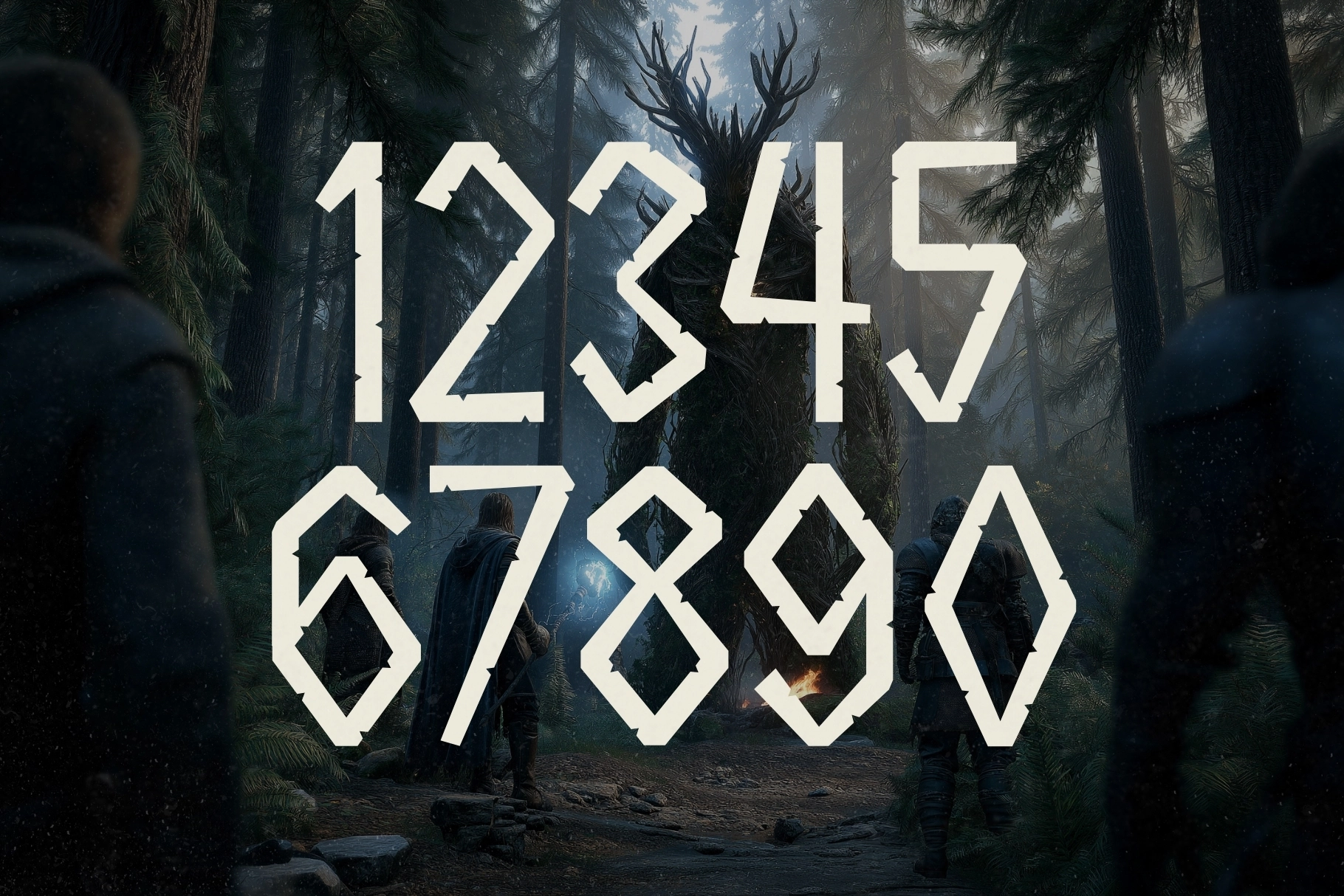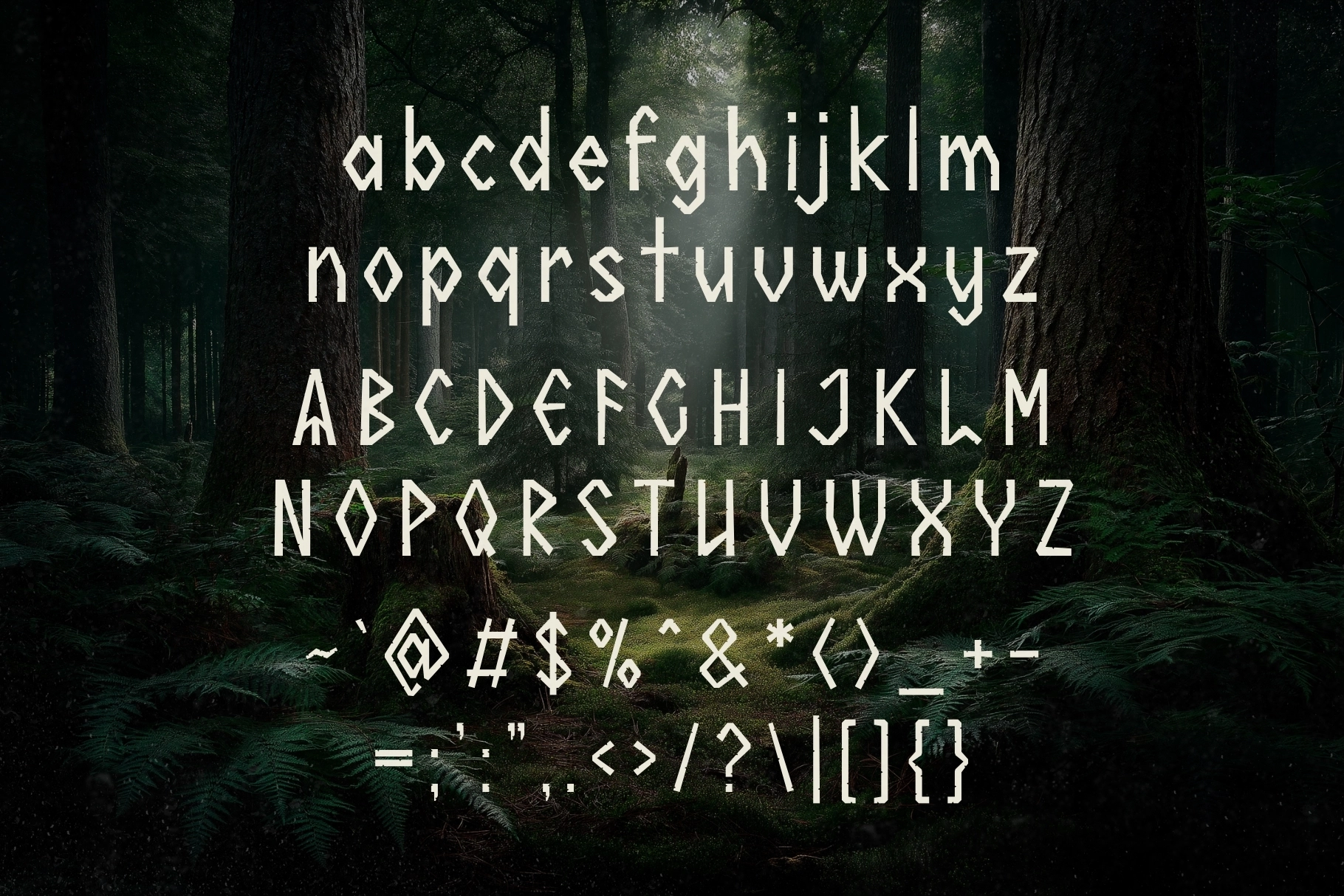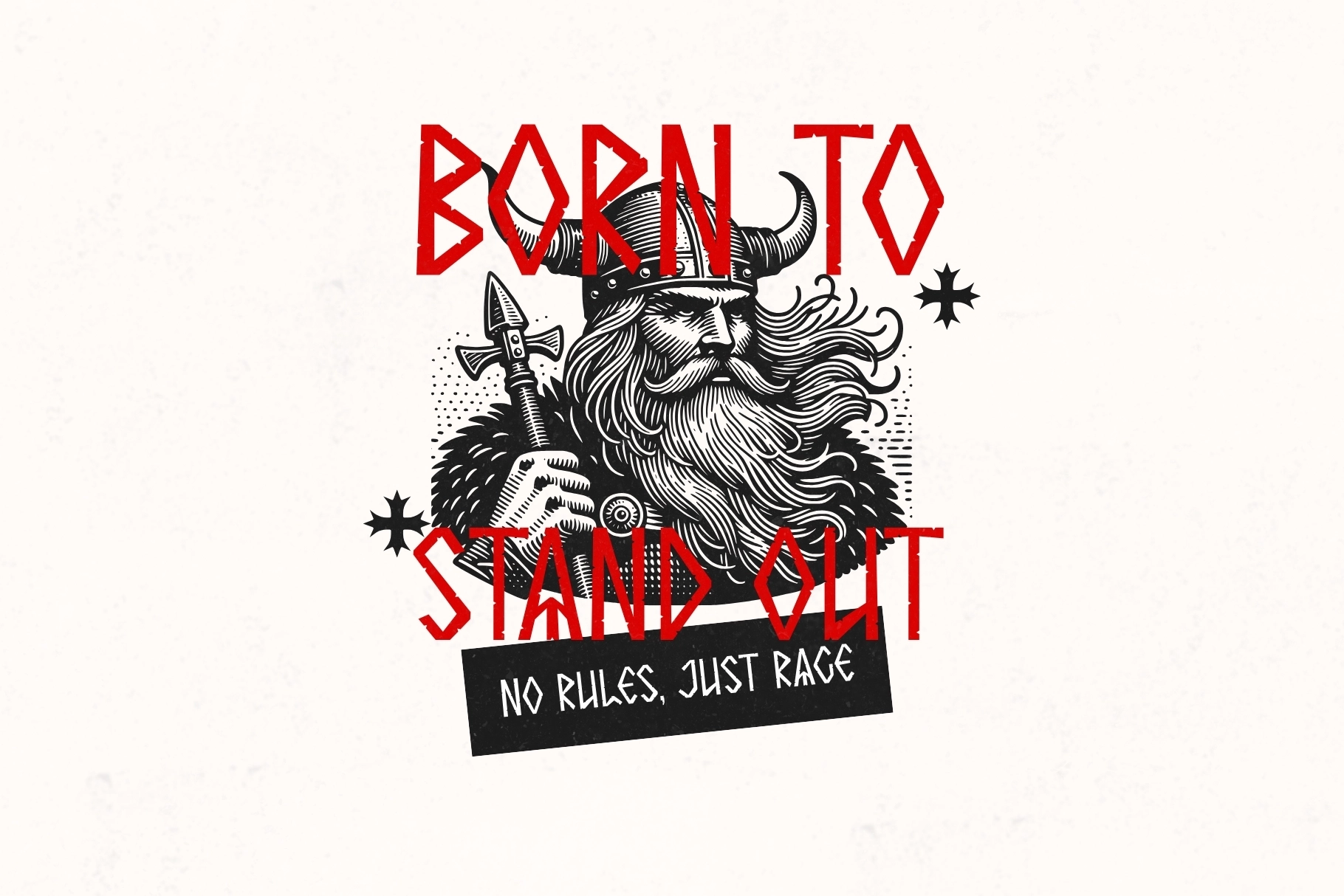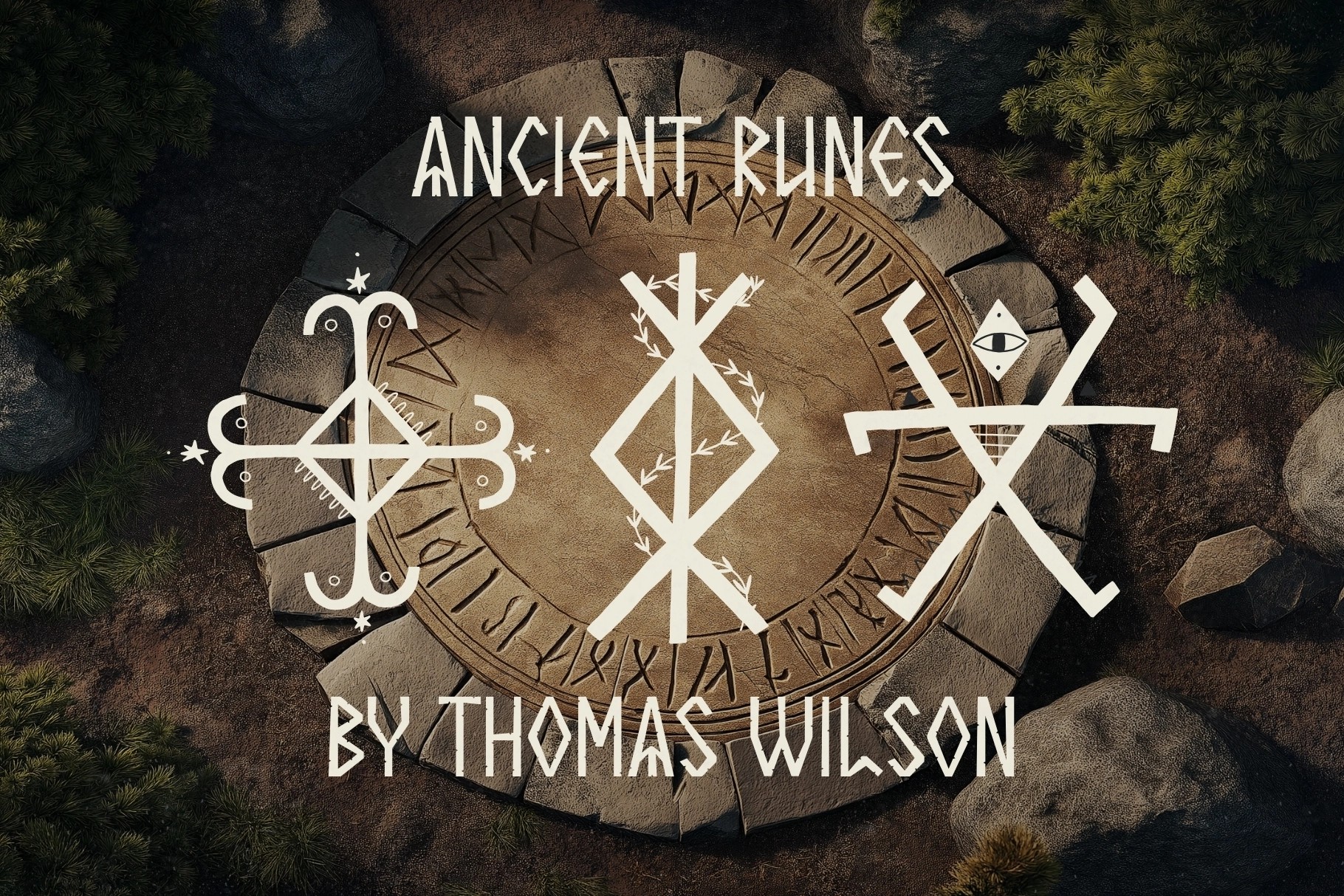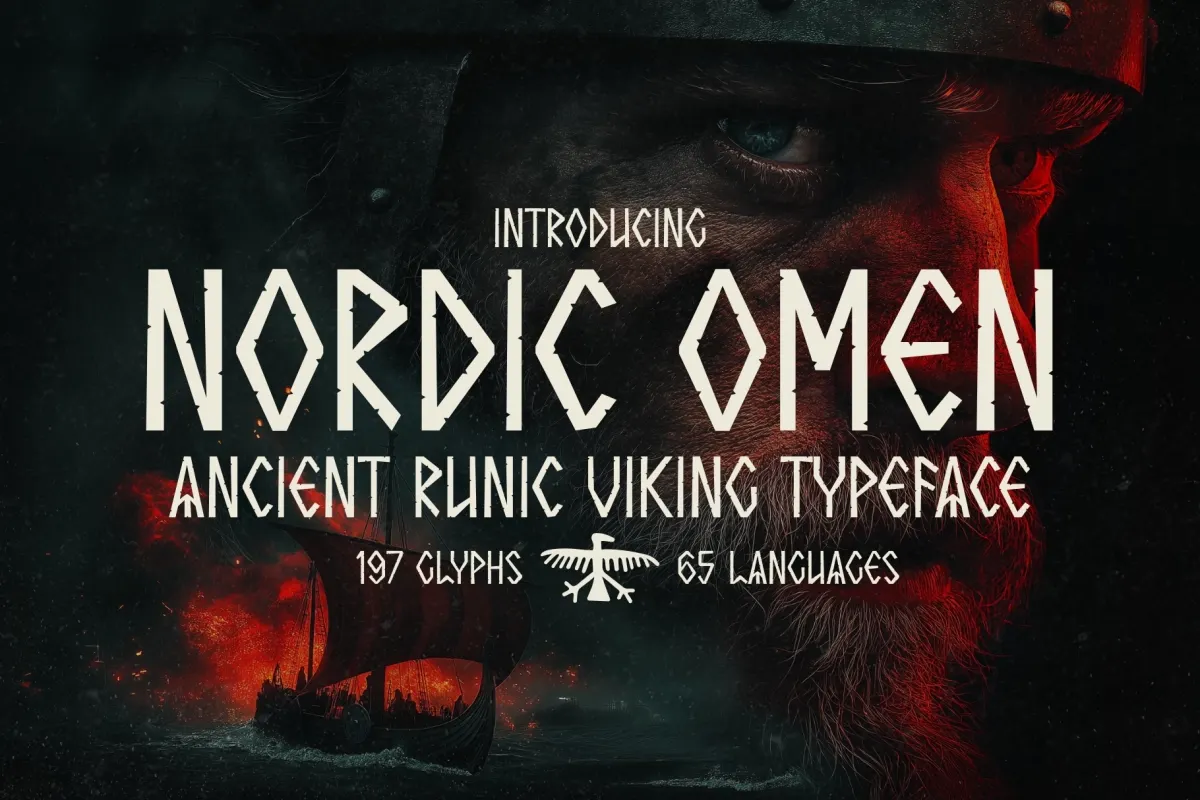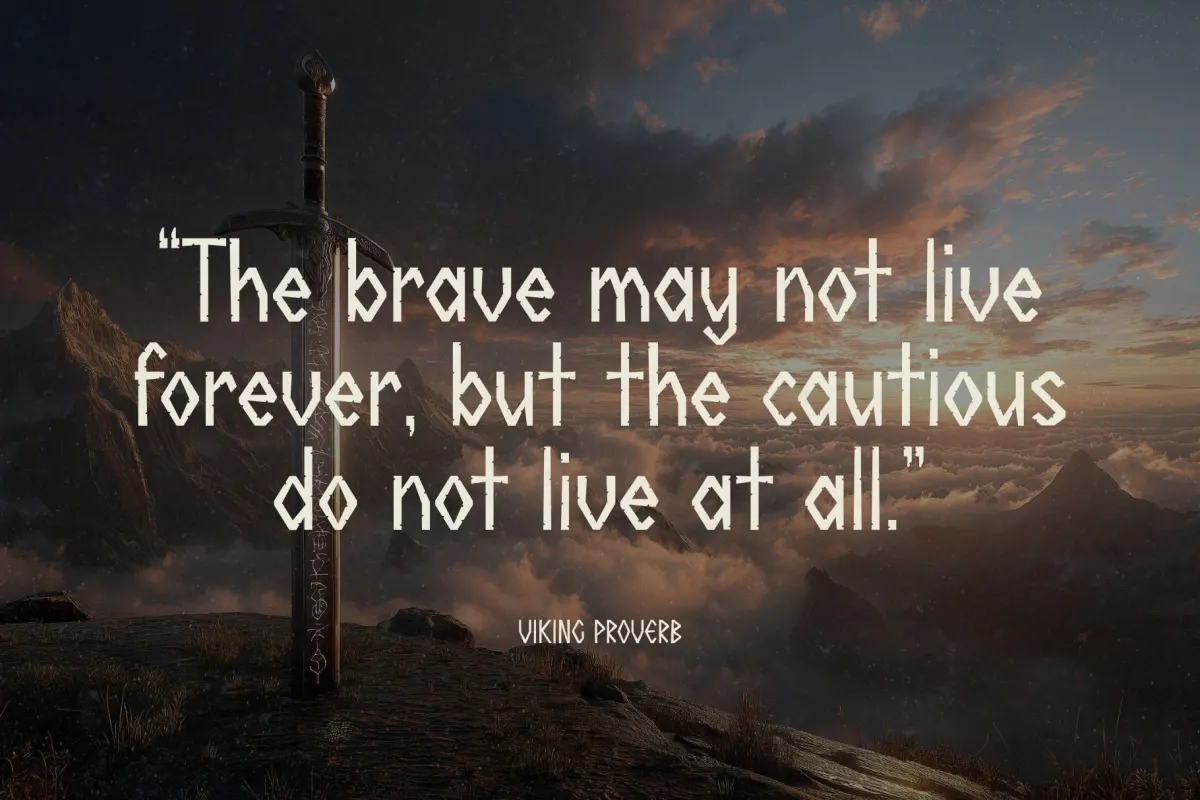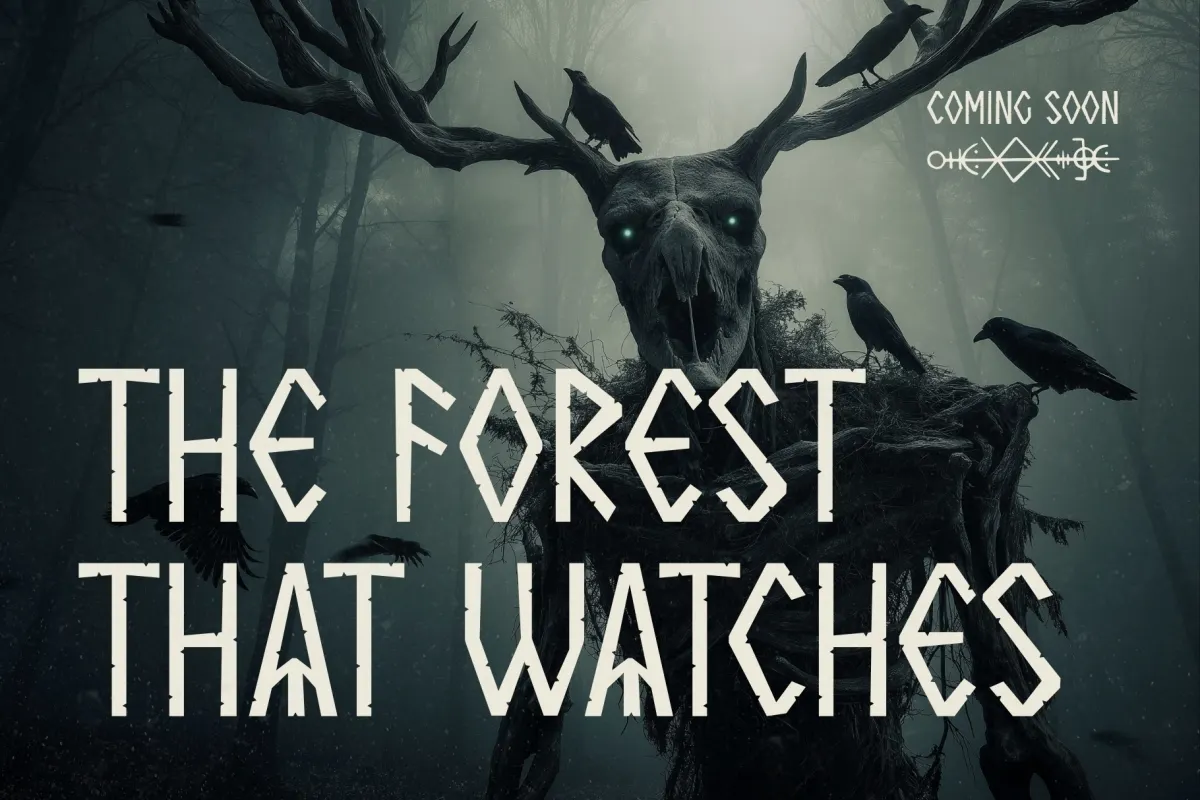
Nordic Omen - Ancient Rune Typeface
Nordic Omen – Ancient Rune Typeface is a bold runic display font inspired by Viking culture, Norse mythology, and ancient Nordic symbols. Built with sharp, chiseled edges and rune-influenced letterforms, the typeface evokes the raw strength and mysticism of the legendary North. Each character feels carved from stone or forged in iron, creating a powerful visual style that reflects the spirit of warriors, legends, and epic sagas.
Perfect for fantasy projects, game titles, cinematic posters, book covers, branding, and mythological designs, Nordic Omen delivers a dramatic and atmospheric presence. Its unique runic construction adds authenticity and storytelling power, making it ideal for designs that need a strong Viking aesthetic and ancient Nordic character.
• Uppercase & Lowercase Characters
• Numerals & Punctuation
• Rune-Inspired Letterforms
• 197 Glyphs
• Multilingual Support (65+ Languages)
• Ideal for Fantasy, Viking, and Mythology Projects